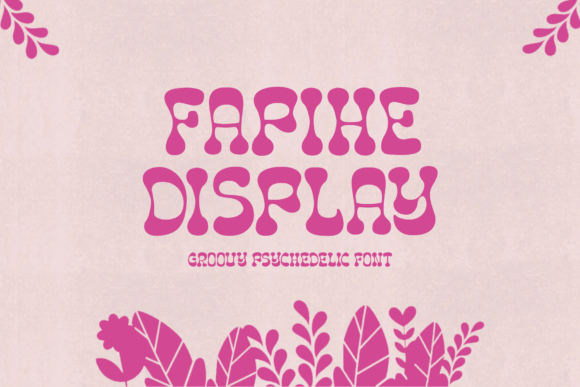
Step into a realm of vintage elegance with Fapihe Font, the crown jewel of display fonts meticulously crafted by Authentic Studio. This captivating font exudes a timeless charm that transcends the boundaries of ordinary typography, beckoning you to embark on a journey through the annals of history and rediscover the allure of the past.
Fapihe Font possesses an innate ability to transform your creative visions into tangible masterpieces. Its fluid lines and graceful curves evoke a sense of nostalgia, inviting you to create designs that resonate with the hearts and minds of your audience. Whether you're crafting logos, letterheads, or embarking on your own stationery, Fapihe Font provides the perfect canvas for your imagination to flourish.
With its unwavering commitment to authenticity, Fapihe Font pays homage to the golden age of design, seamlessly integrating vintage aesthetics with contemporary flair. Its intricate details and finely tuned proportions are a testament to the dedication and artistry of its creators, ensuring that your designs stand out from the crowd with a touch of timeless elegance.
Indulge in the versatility of Fapihe Font, a font that effortlessly adapts to a myriad of design applications. Its innate charm shines through in both digital and print formats, making it the perfect choice for logos, branding materials, and marketing campaigns. Whether you seek to make a lasting impression on your clients or establish a strong brand identity, Fapihe Font is the ultimate weapon in your design arsenal.
Beyond its aesthetic appeal, Fapihe Font possesses an emotional depth that resonates with users, evoking a sense of nostalgia, warmth, and familiarity. Its vintage charm has the power to transport users back in time, creating a connection that resonates on a deeply personal level. By incorporating Fapihe Font into your designs, you're not just creating visuals; you're crafting experiences that touch the hearts and minds of your audience.